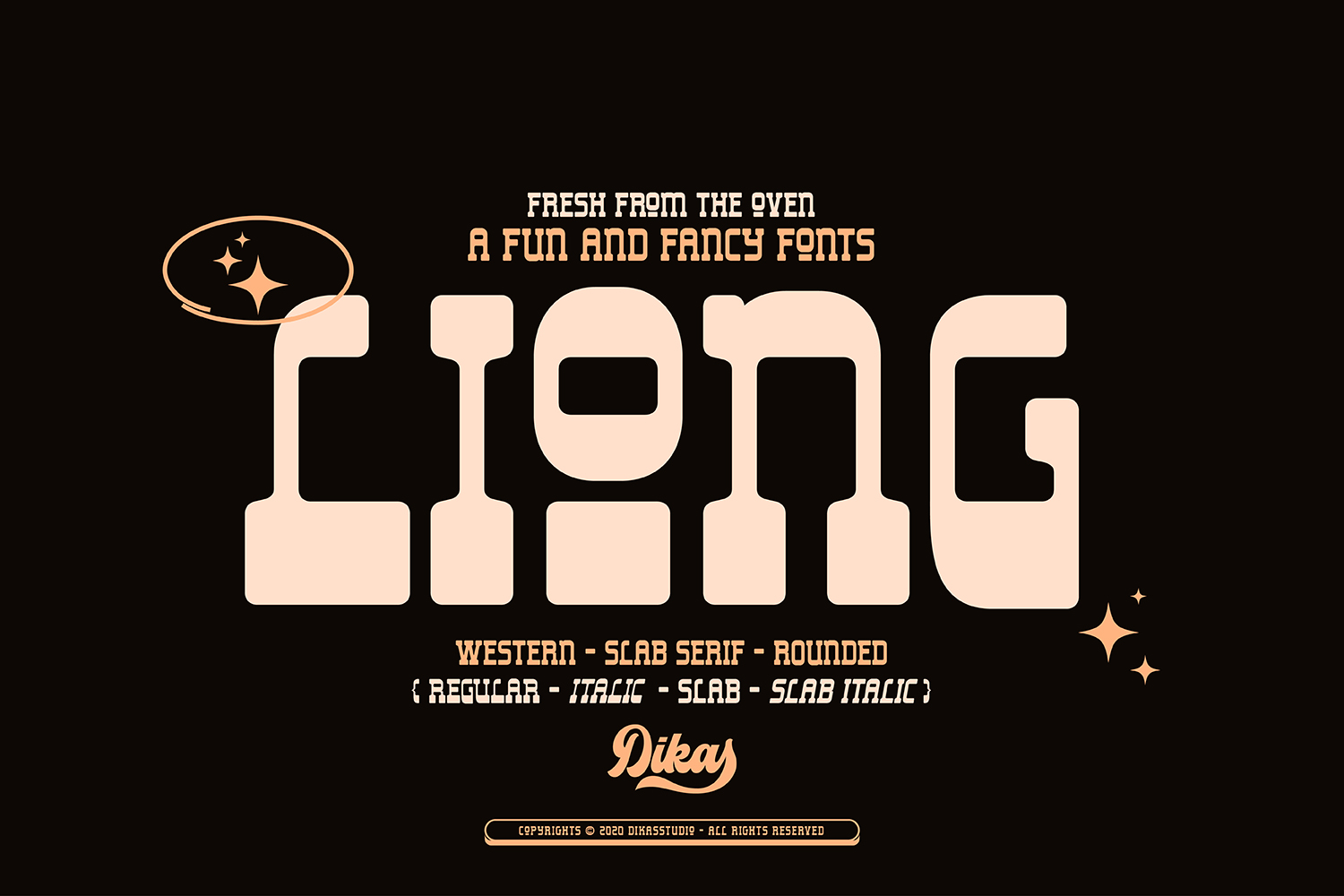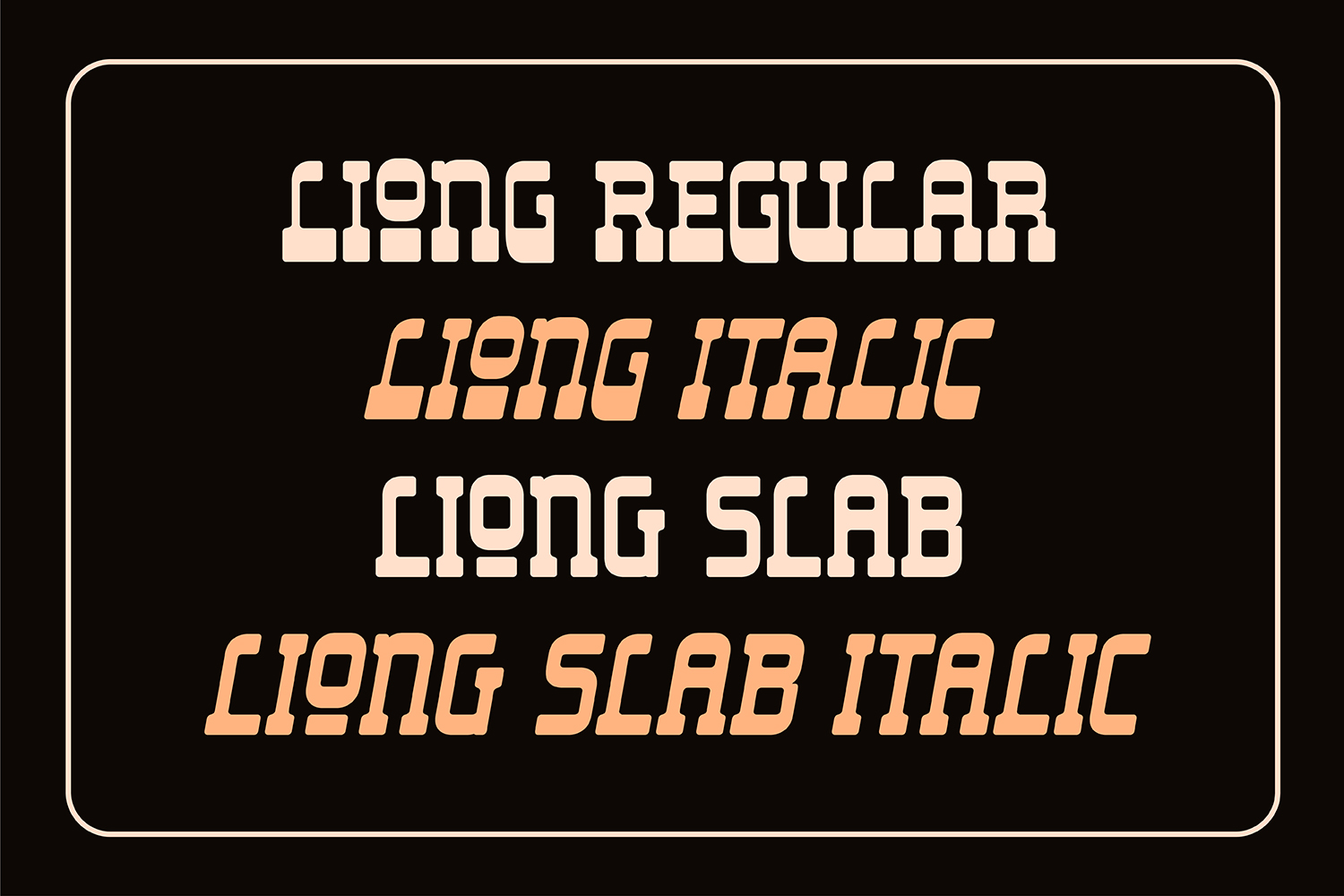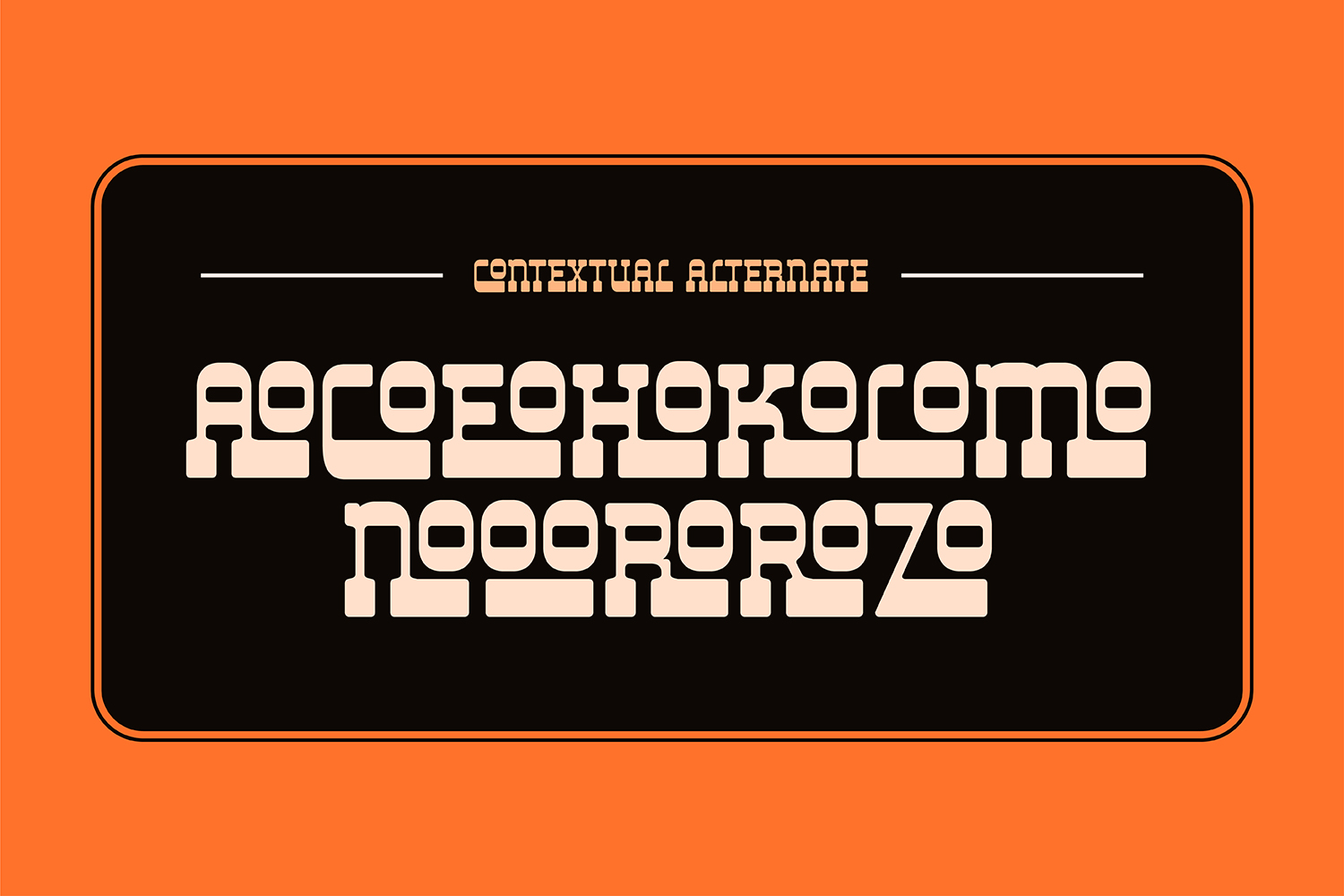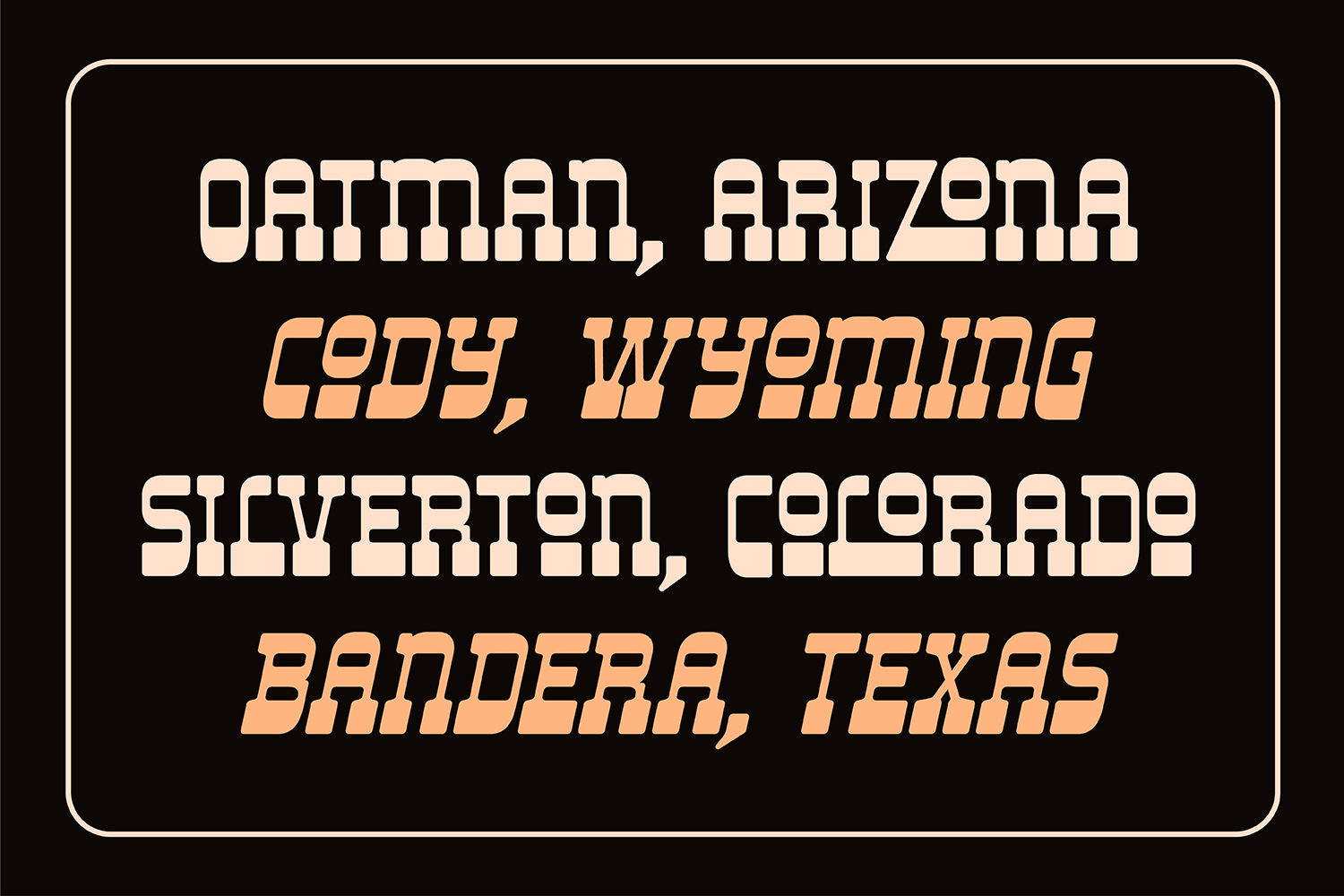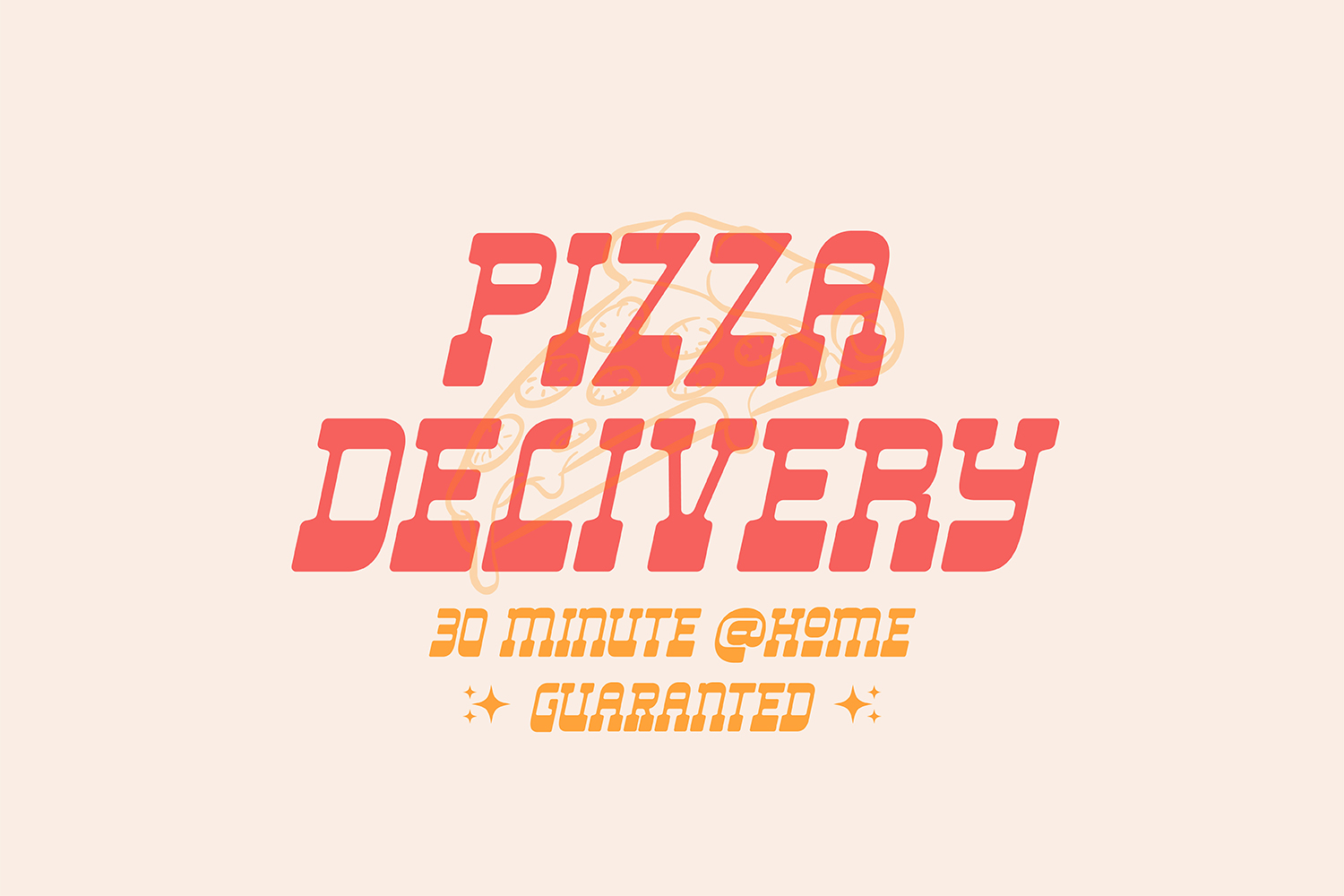
Liong Free Font
Liong Free Font is a bold & retro slab serif typeface inspired by vintage western style, they have a unique weight bar and slab with high contrast design. Liong comes with 4 styles regular, italic, slab & slab italic, perfect for logos, badges, typography, and any retro design needs. This free typeface was designed by talented Andika Setiawan. If you like it don’t forget to check out the full version.